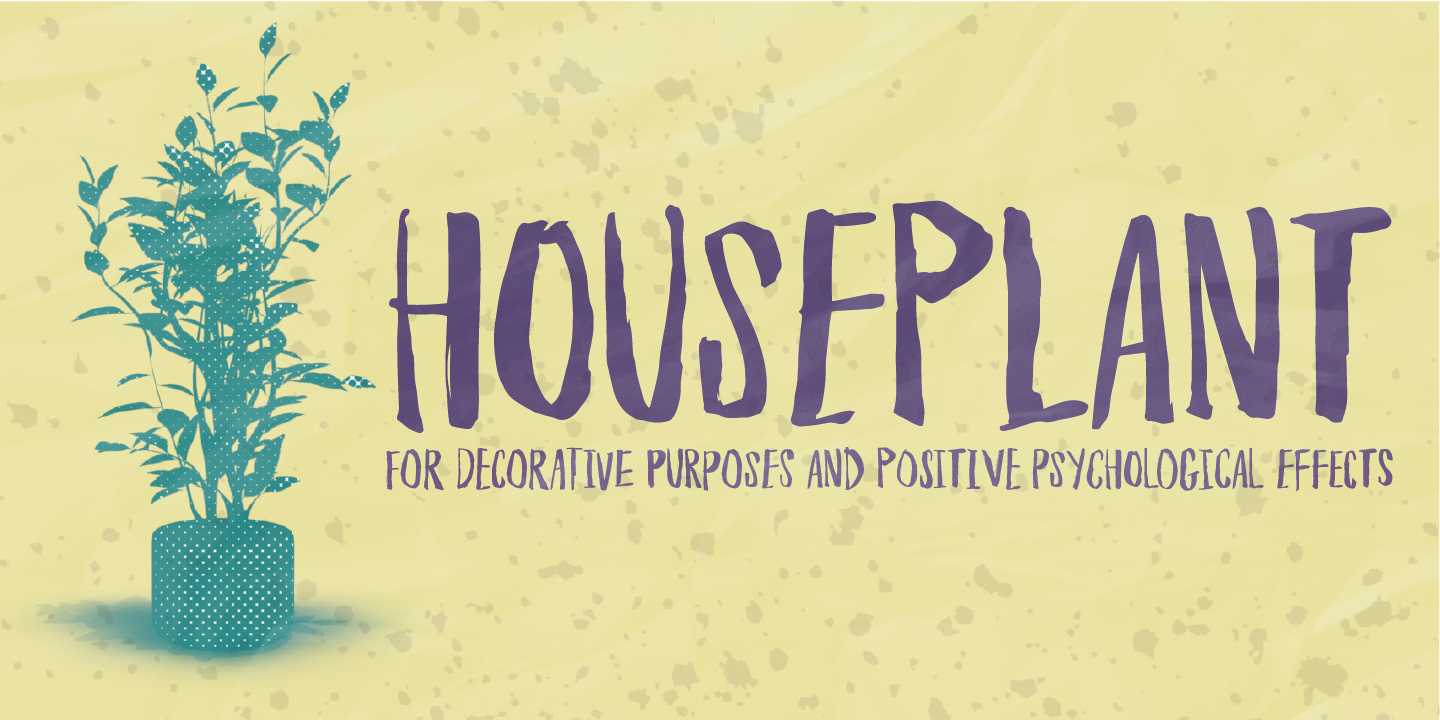
The Houseplant Font Free Download is a fresh and friendly typeface inspired by nature and hand-drawn lettering. It’s perfect for botanical branding, plant shop signage, eco-friendly packaging, gardening blogs, wellness products, and cozy lifestyle content. Its organic charm makes it a natural fit for any nature-loving project.
What makes this font exciting is its earthy personality and welcoming flow. It blends handwritten warmth with clean readability, giving your designs a relaxed, down-to-earth tone. It feels like a handwritten note tucked into a pot of herbs—personal, thoughtful, and alive.
The Houseplant font family includes styles like Regular, Italic, Outline, and Decorative Leaf accents, offering plenty of variety to experiment with in creative layouts. Whether you’re designing a logo, product label, or Instagram post, you’ll find a version that fits just right.
If you want your visuals to feel homegrown and heartfelt, Houseplant Font Free Download delivers just the right balance of personality and polish. It brings a fresh breeze into any design space and speaks directly to conscious, creative audiences.